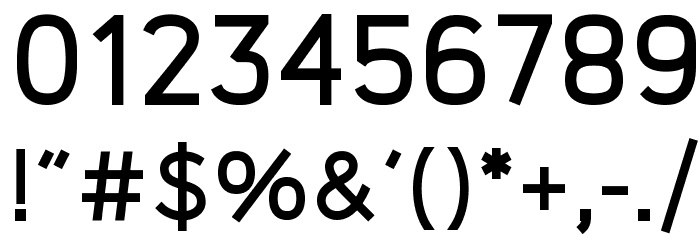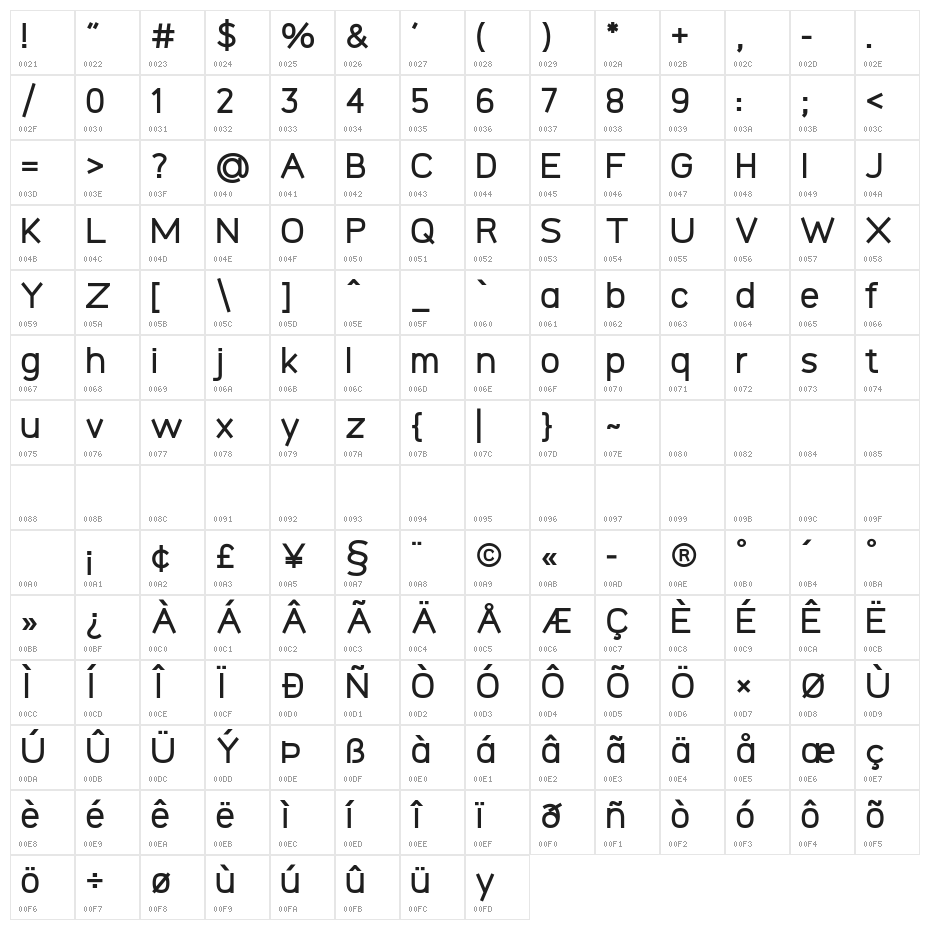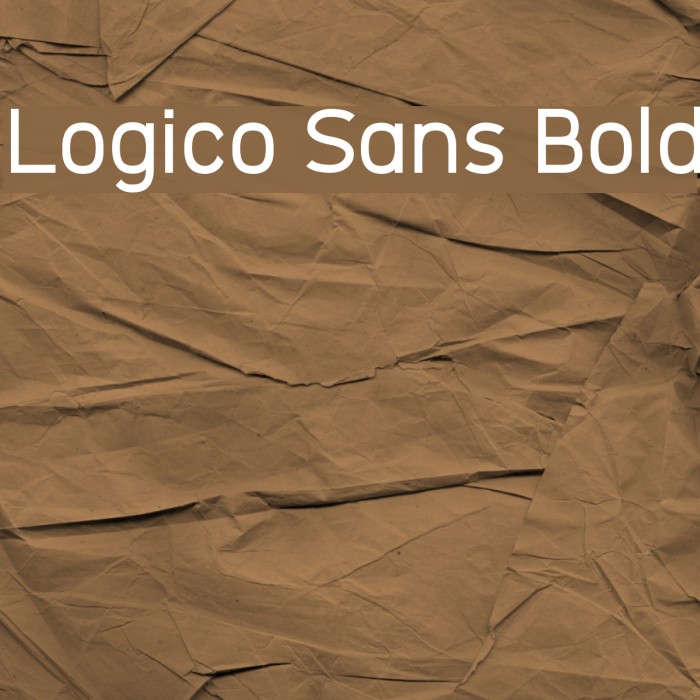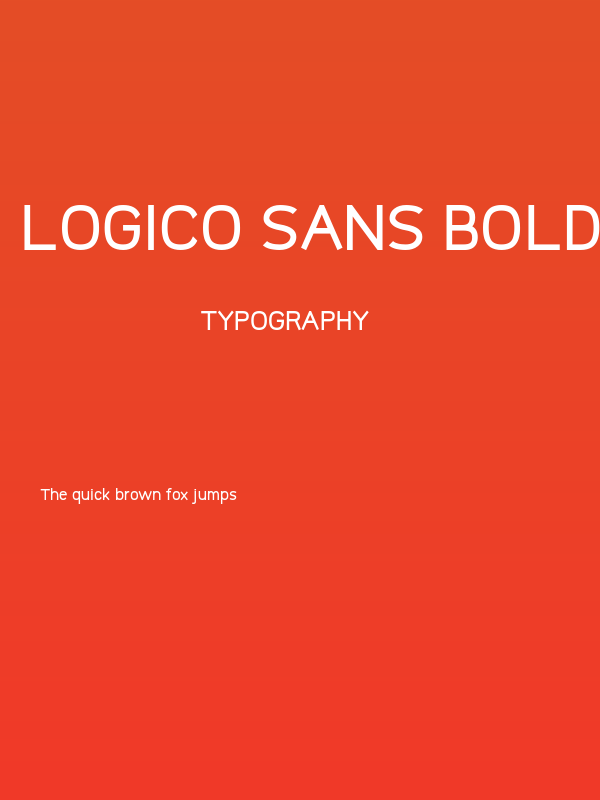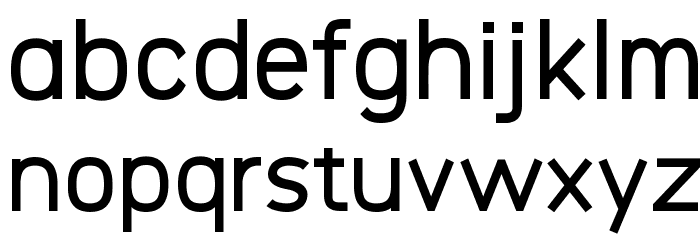
Logico Sans Bold Font
Logico Sans Bold Description
This font features a clean and modern sans-serif design with uniform stroke widths, providing a bold and assertive appearance. The characters are well-proportioned, with a geometric influence that enhances readability and visual appeal. The uppercase and lowercase letters maintain a consistent style, ensuring a cohesive look across different text sizes. The numerals are clear and distinct, making them suitable for various applications. Special characters are included, maintaining the font's overall aesthetic. Its simplicity and clarity make it versatile for both digital and print media.
| Proposed Projects | Ideal for branding, advertising, web design, and editorial layouts. |